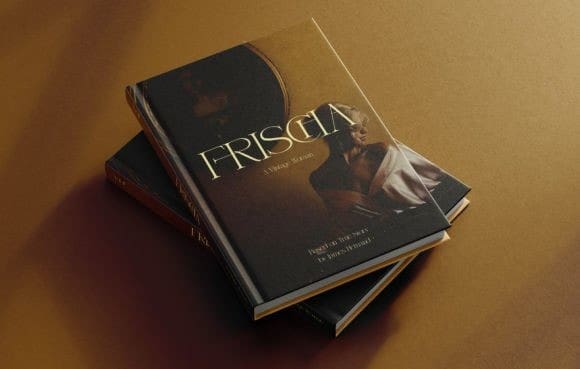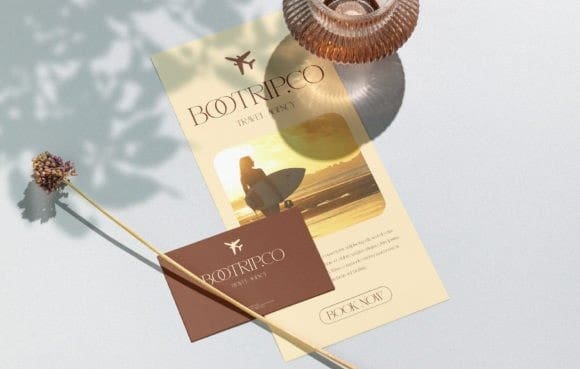
Frageell Font
Frageell Font is a modern serif ligature font revival that brings all these and even more. It is perfect for vintage, logos & quotes, posters & branding, website headlines, newsletters & more!